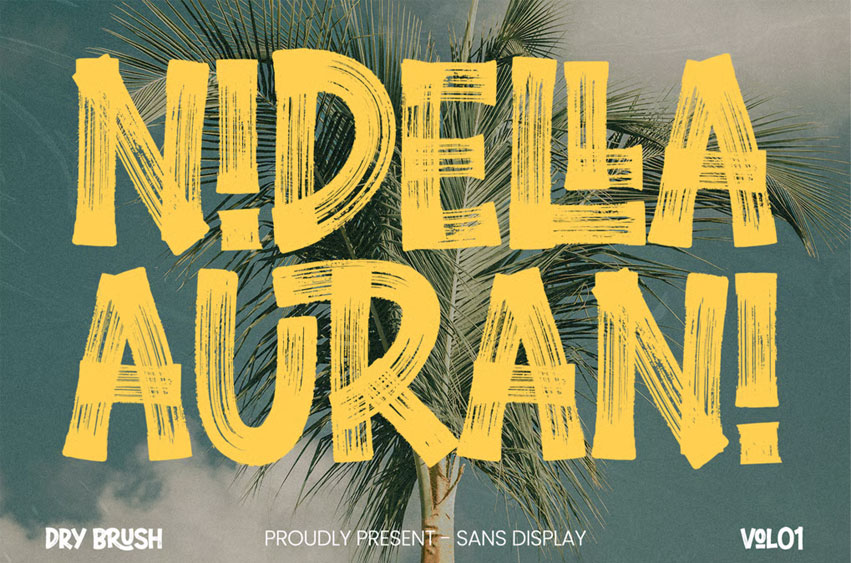
Nidella Aurani Font
Nidella Aurani Font is a punchy, dry-brush sans display typeface that brings a raw, urban attitude to your layouts. Its hand-painted strokes, gritty textures, and confident forms deliver instant impact while staying readable — perfect for eye-catching titles in both digital and print.
Whether for posters, branding, packaging, or social graphics, Nidella Aurani adds street-smart character and energetic motion to your visuals.
• Posters & flyers
• Branding & logo design
• Product packaging
• Headlines & title graphics
• Social media posts & promos
• Event graphics & festival artwork
• Sports & gym campaigns
• Skate & street culture themes
Nidella Aurani Font Preview